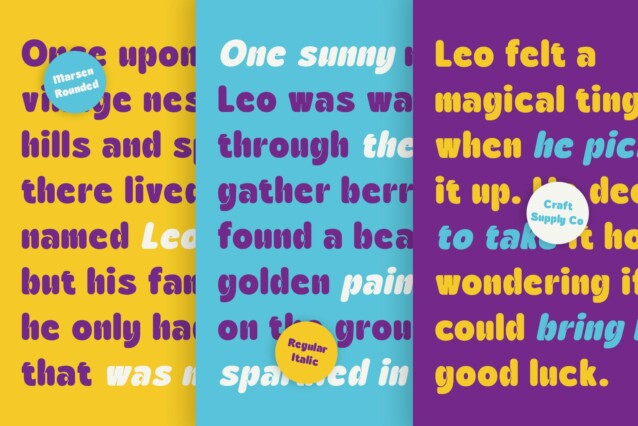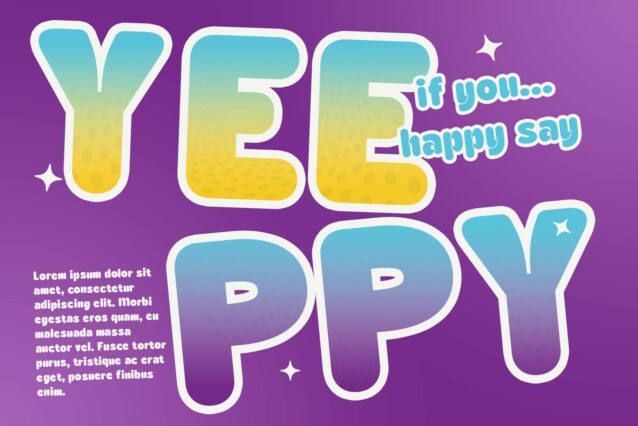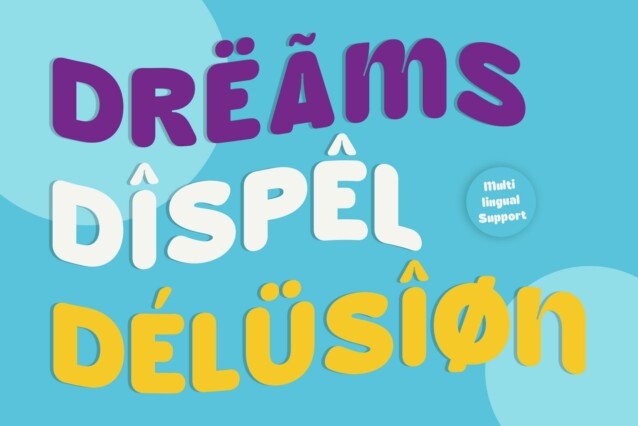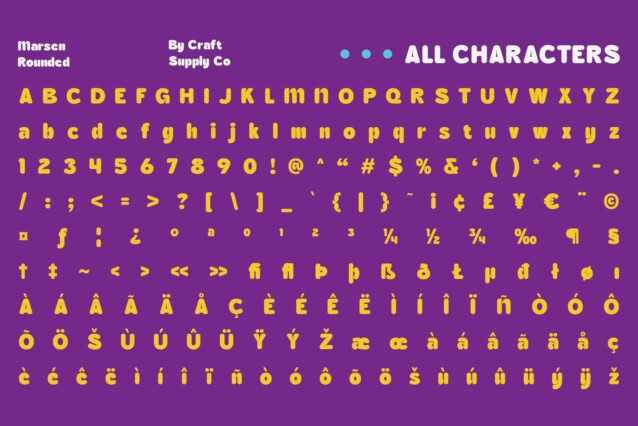
Marsen Rounded Font
Marsen Rounded Font is a modern sans serif font that features thick, rounded shapes combined with innovative inktrap designs, capturing a cute and funky 90s vibe. Its bold, rounded form not only creates a cheerful impression but also ensures high visibility, making it an excellent choice for lively and engaging designs. The rounded edges soften the overall look, giving the font a friendly demeanor that draws the viewer in.